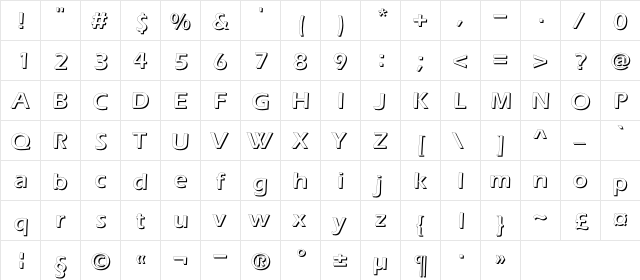
EverestDemiShadow Regular Font Preview
EverestDemiShadow Regular
Design Context for EverestDemiShadow Typeface
EverestDemiShadow is built around its visual character rather than neutral utility — its distinctive forms are designed to make an impression at display sizes.
Font Pairing: Pair with a clean neutral sans-serif for body copy to let EverestDemiShadow's character lead without overwhelming the composition.
Pro Tip: Use EverestDemiShadow exclusively at display sizes — it was designed to be seen, not read at length. Let a neutral companion handle body copy.